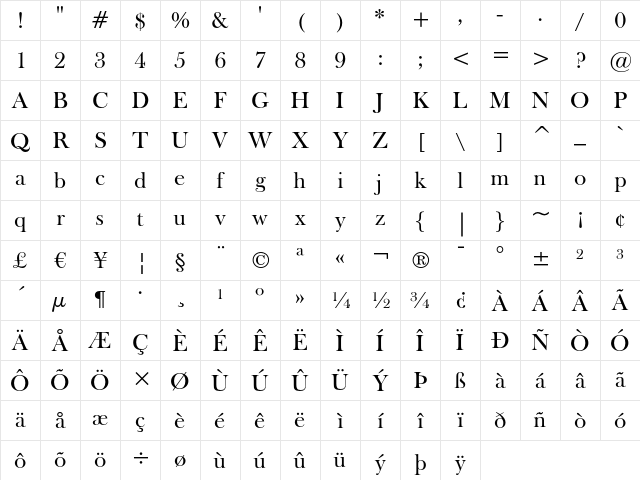
Fry's Baskerville Regular
Design Context for Fry's Baskerville
Fry's Baskerville is a composed and adaptable typeface that performs quietly and consistently across a wide range of design contexts.